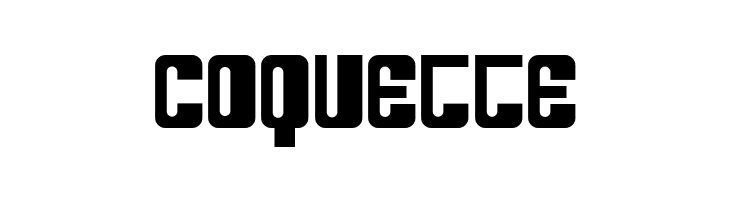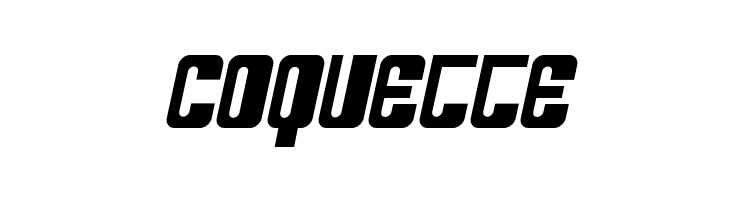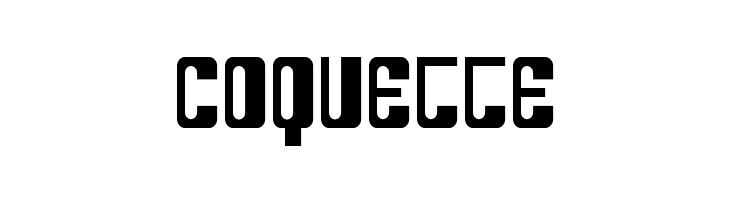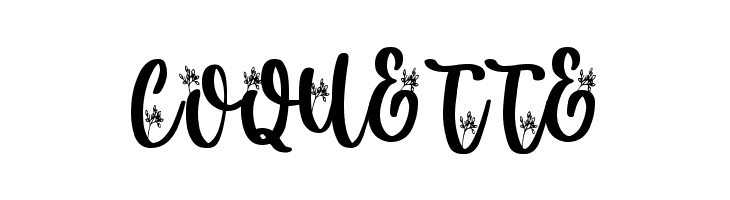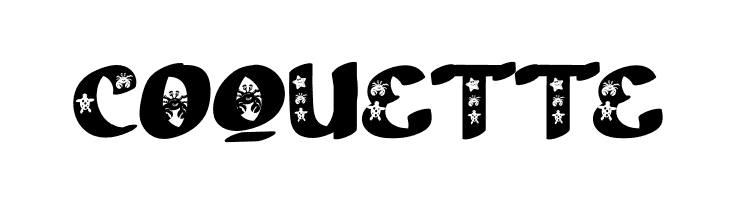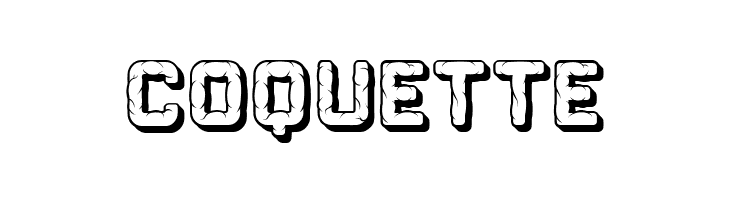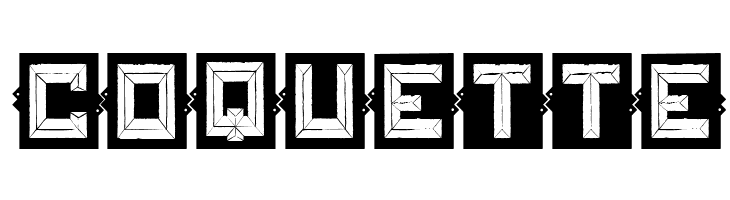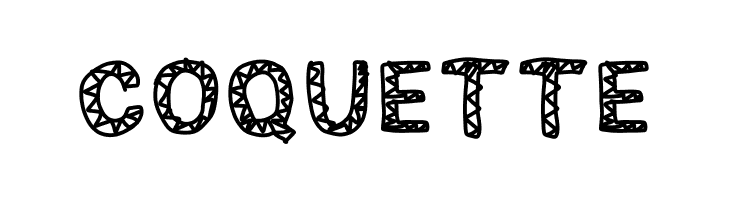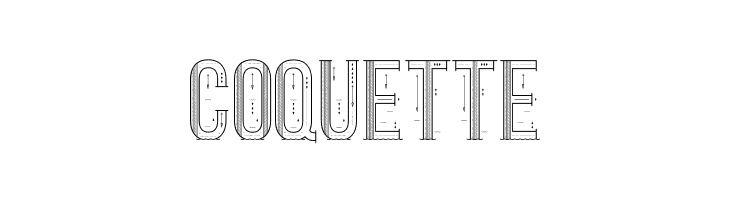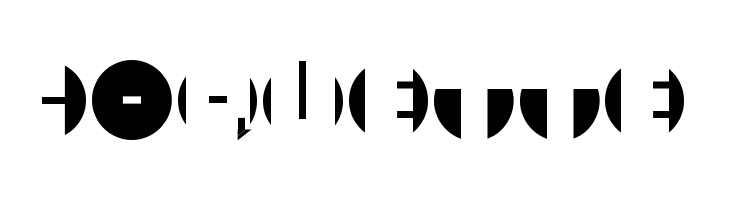
A bold, sculpted font with a three-dimensional, chiseled appearance.
( Fonts by Yai Salinas )
A decorative font with a nautical theme and intricate line work.
( www.qkila.com/font )
A decorative font with geometric patterns and framed characters.
( Fonts by Mr.Soon Design )
A playful, decorative font with star-adorned uppercase letters and bold, rounded characters.
Ornate illustrated font with underwater sea life motifs.
( Fonts by Janelle Remphrey )
A bold, abstract font with overlapping oval shapes, inspired by organic patterns.
( Fonts by Janelle Remphrey )
A tree-inspired font with angular, branch-like characters.
( Fonts by Cassie Fernandez )
A decorative font with geometric patterns and a futuristic style.
( Fonts by Rachel Needham )
An abstract, geometric font with fragmented characters and a modern art style.
( Fonts by DM Studio )
A whimsical, decorative script font with floral embellishments.
( Fonts by Didik Pratikno )
A bold, decorative font with intricate floral patterns within each character.
A bold, decorative font with geometric patterns and a three-dimensional effect.
( Fonts by PutraCetol Studio )
A playful, star-adorned font with bold, rounded characters.
( Fonts by twinletter )
A playful, hand-drawn font with irregular edges and textured strokes.
( Fonts by quadratype )
A bold, humorous font with exaggerated anatomical shapes and playful design.
A pictogram font with peace and remembrance-themed illustrations.
( Fonts by weknow )
An artistic, hand-drawn font with swirling, dynamic strokes.
A classic serif font with elegant, elongated letterforms and high contrast strokes.
A bold, three-dimensional font with geometric shapes and clean lines.
An ornate and decorative font with intricate swirls and embellishments.
A decorative font with intricate swirls and artistic embellishments.
( Fonts by Maurice The Hormone Monster AUTTP )
A decorative, grid-based font with intricate patterns and textures.